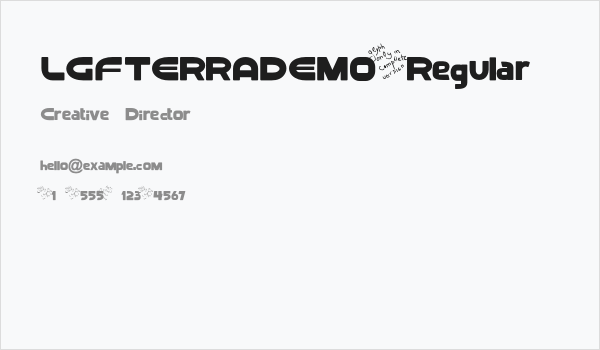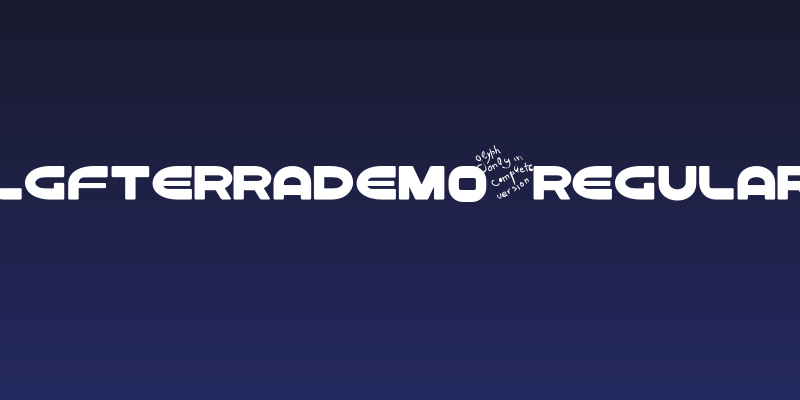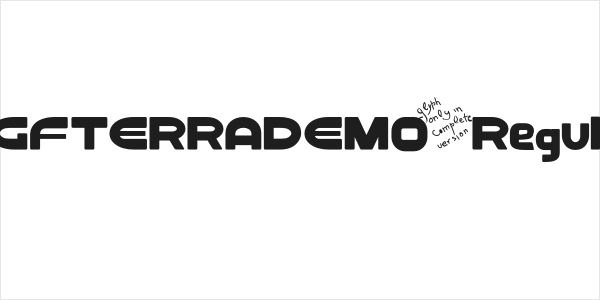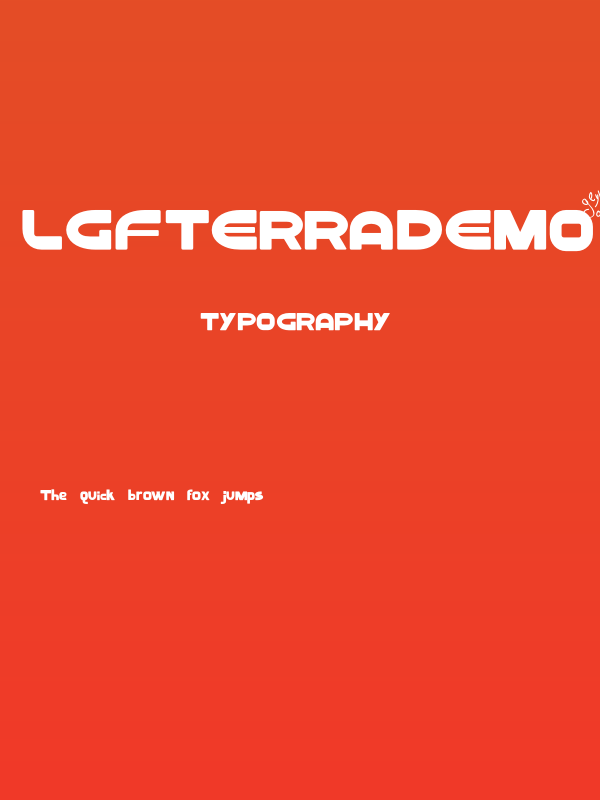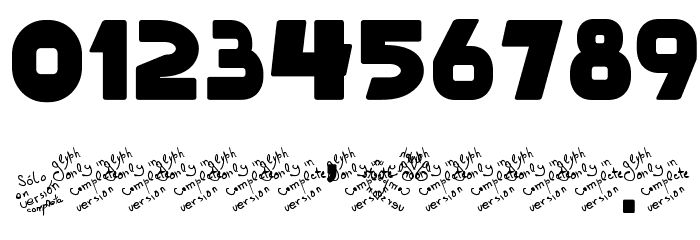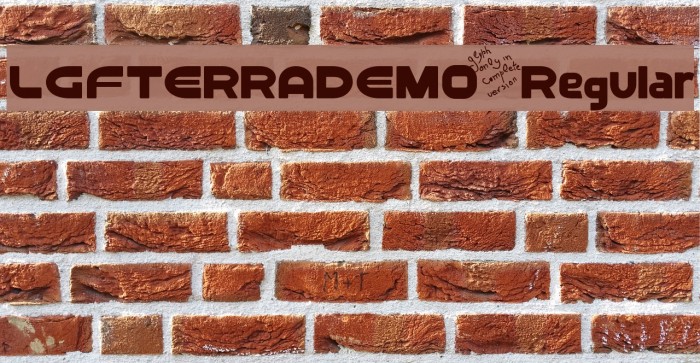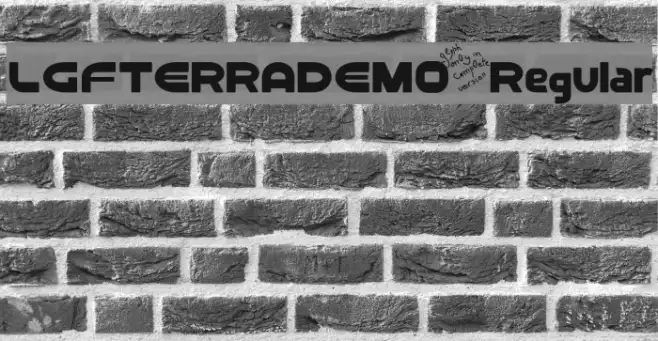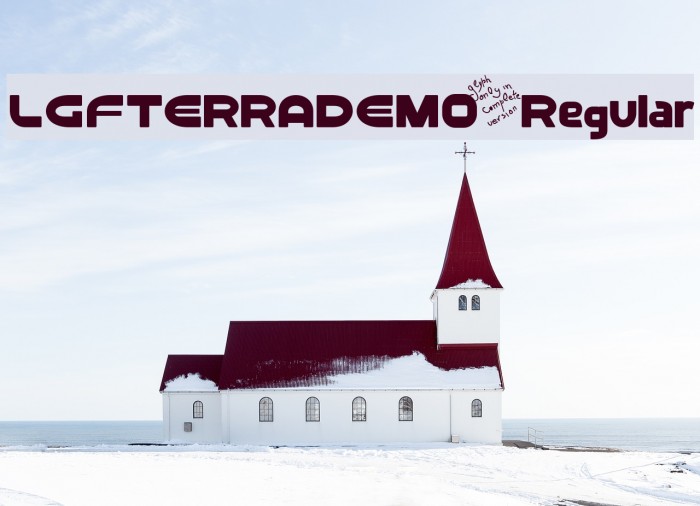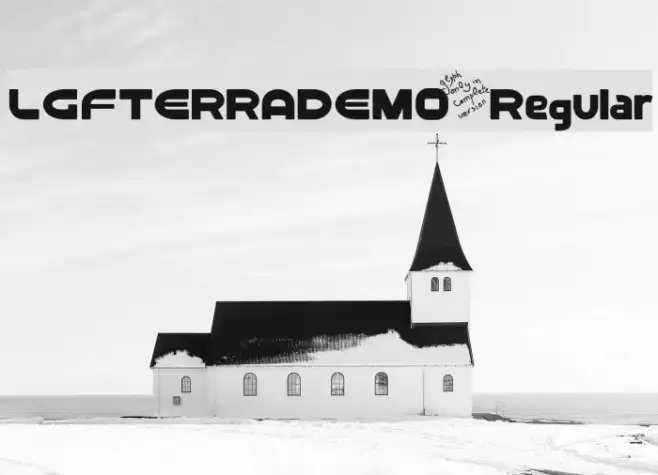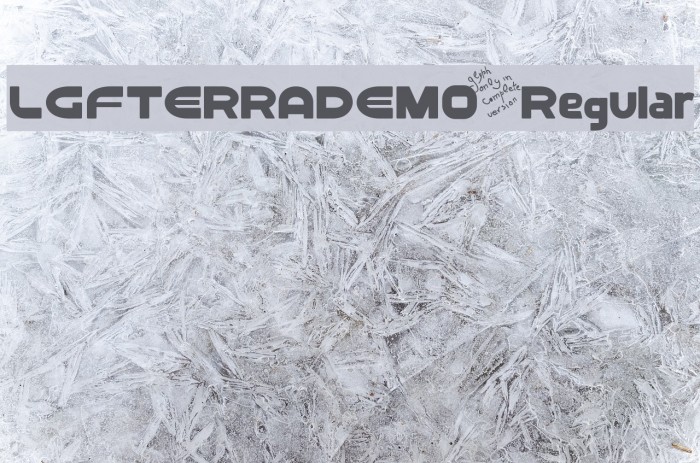
LGFTERRADEMO-Regular Font
This font features a bold and modern design with a strong geometric influence. The uppercase letters are wide and blocky, creating a powerful visual impact. The lowercase letters maintain a similar boldness, with rounded edges that soften the overall appearance. The numerals are consistent with the letterforms, offering a cohesive look across all characters. The special characters are designed to match the bold and geometric style, ensuring uniformity throughout the font. This typeface is ideal for making a statement with its thick strokes and high contrast, making it suitable for headlines and display purposes.
| Proposed Projects | Ideal for branding, posters, headlines, and any project requiring a strong, modern typeface. |